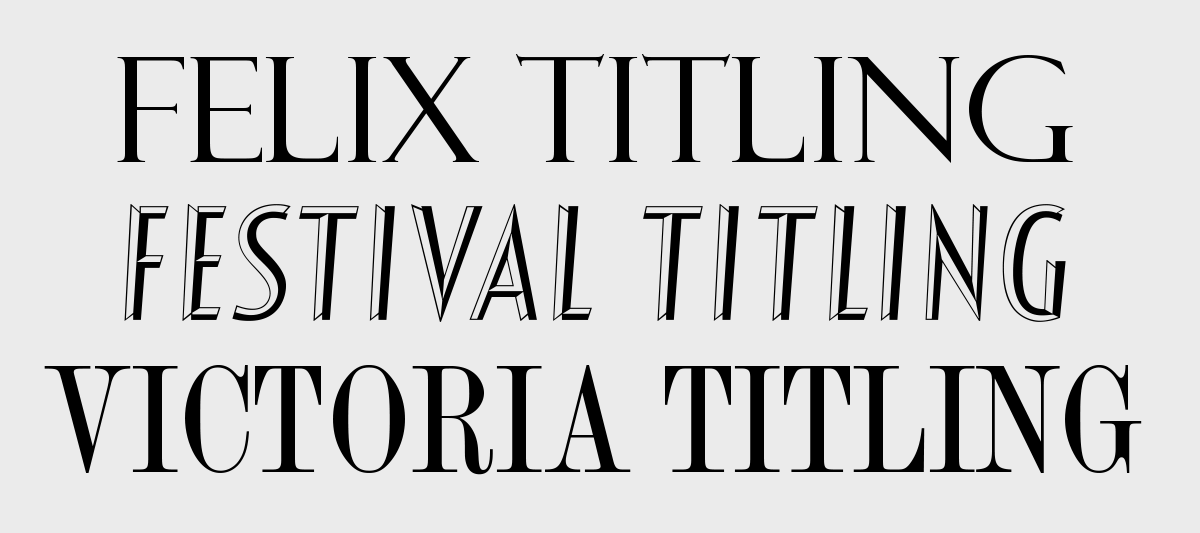
All About Titling Fonts
When looking for just the right display typeface, have you considered a titling font? If not, you are missing out on an entire category of possibilities. Titling fonts are typefaces designed specifically for headline or display usage. They are usually all caps, but some can contain lowercase, and even small caps! Titling fonts differ from their text counterparts in that their scale, proportion, and design details have been tweaked to look best at larger sizes. They often have an increased weight contrast between the thick and thin parts of the characters, and can sometimes have more condensed proportions than their text-sized cousins if part of a family.
This sub-category of display typefaces tend to have a refined, even dramatic look – qualities that make them an excellent choice for books, magazines, movie titles and sequences, logos, signage, or any usage that calls for large-sized type benefiting from finessed design details as well as a touch of elegance.
Titling fonts can be part of an existing typeface or a stand-alone design. They are most often – but not always – serif designs with pronounced weight contrast, as it is the thin strokes that vary the most in typestyles intended for text and those meant for display.
Font Families with Titling Fonts
Titling fonts, as mentioned above, are frequently single-weight variants that are part of a type family, such as those available with Adobe Garamond Pro, ITC Golden Cockerel, Dante, Plantin, and Bembo, They are designed to expand the range of usage of designs that are primarily intended for text. In some cases, titling fonts are made to be used with a font family of a different name, such as Forum Titling, which was designed by Frederick Goudy to be used with his Kennerley type family, a book face.
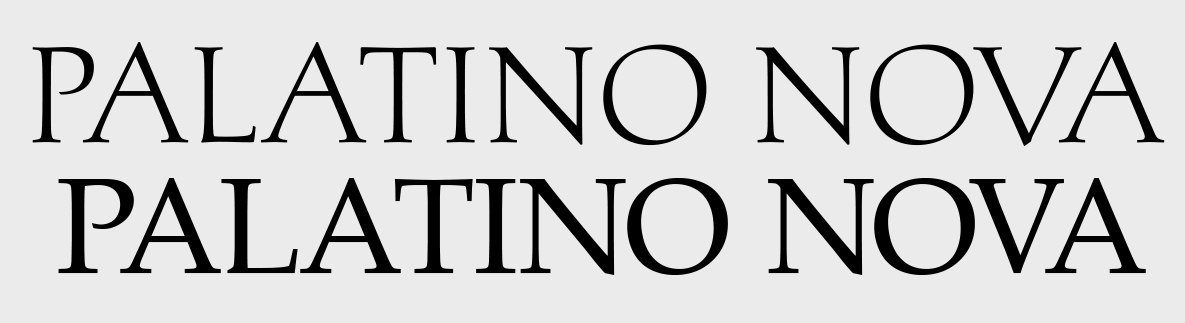
Palatino Nova Titling is lighter, narrower, with some different design details than the regular version below it, such as a raised crossbar on the A.
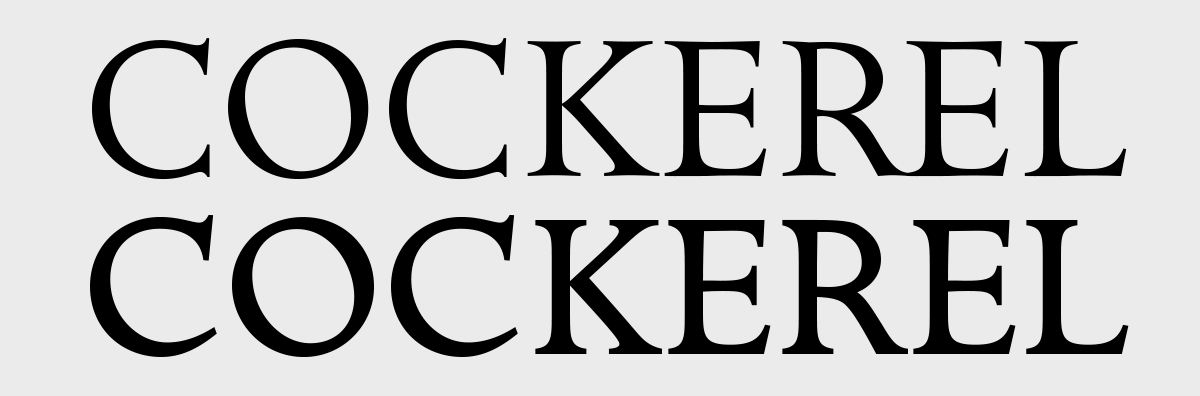
Golden Cockerel Titling (upper) has thinner serifs than the regular version, including a lower serif added to the lower extension of the C.
While most titling fonts are designed as part of the original family, some come later, both in concept and execution. One such example is Hoefler Titling. Hoefler Titling is unique amongst titling fonts in that it is a robust family of twelve fonts for display sizes. It is basically three weights (Light, Semibold, and Bold) that each includes romans (upright designs), italics, small caps, and swashes. This classic design in the baroque style was designed to be a display-sized companion to Hoefler Text typeface family. Some titling fonts deviate a bit from the typical model. One such example is Neutraface Display Titling, which is a heavyweight, all-cap version of this sans serif typestyle.
The Hoefler Titling family has a whopping 12 versions and is a companion to the Hoefler Text family.
Stand-alone Titling Fonts
Titling fonts can also be standalone designs, such as Felix Titling, Festival Titling, and Victoria Titling Condensed. Some are even more decorative than the typical titling font, such as Rococo Titling and Erler Titling. While titling fonts are most often all caps, there are some exceptions, such as Village Bold Titling, which has a lowercase.
How to Find Titling Fonts
If you are using or considering a font that contains titling alternates within it, such as Adobe Garamond Pro, these characters can be accessed via the Character panel’s drop-down menu found in many design apps, such as Adobe InDesign and Illustrator. Note that only OpenType fonts have the expanded character capacity that can accommodate these extra glyphs.
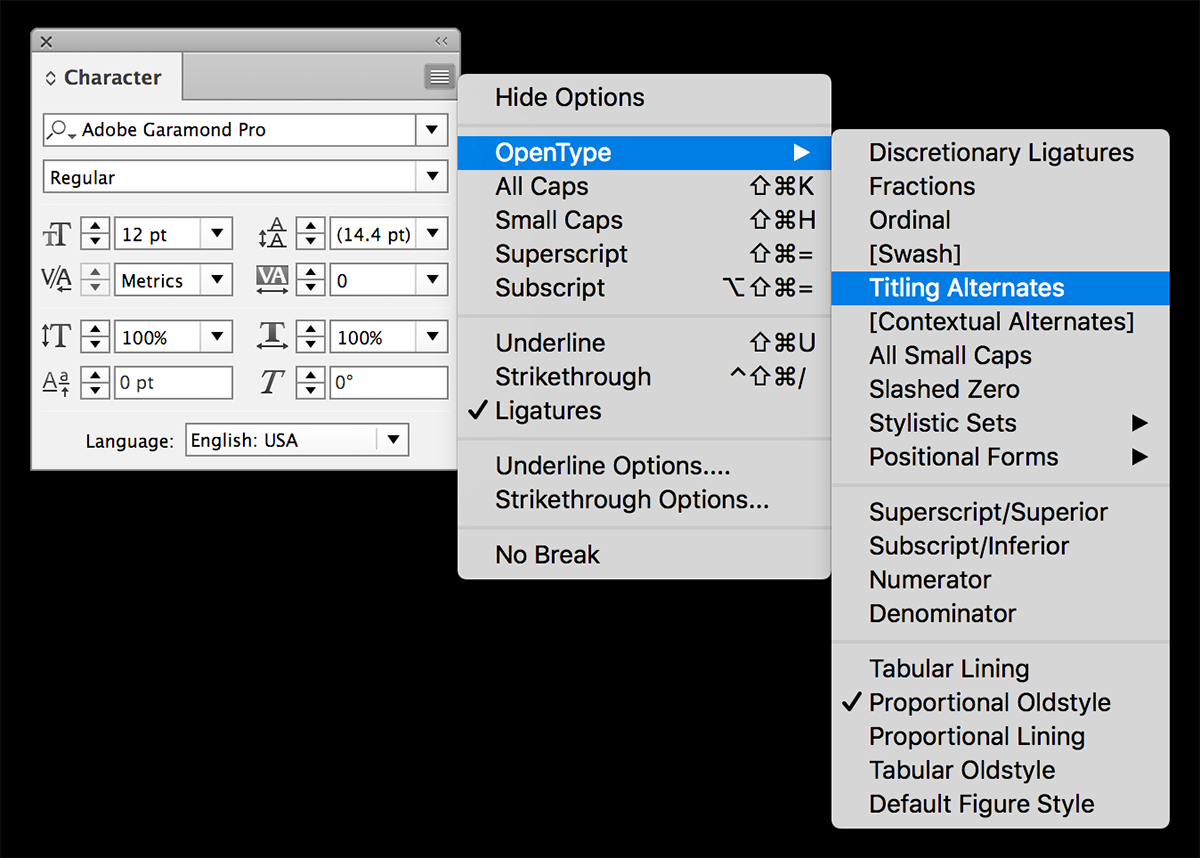
Adobe Garamond titling caps are accessed from within the regular Garamond font via the Titling Alternates option located in the Character panel.
If you are starting an exploration for a titling font via a font foundry or reseller, the easiest way to locate them is to do a search for “titling.” Don’t forget to check out Google Fonts, which also has titling fonts, such as those shown below.
You might even have titling fonts in your own library that you are not aware of, so don’t forget to search for “titling” in your existing library. If you are using a font management utility (FontAgent Pro, Extensis Suitcase Fusion, Linotype Explorer, or even Apple’s Font Book), you can drag the results of this search into a folder entitled “Titling Fonts” for easy identification in the future.
Another method for location individual titling fonts is to search from within the software you are using, such as Adobe InDesign, Illustrator, or Photoshop.
This includes searching via Typekit, which can be accessed from some of the Adobe Cloud apps. If you don’t find what you are looking for, and you or a client are in dire need of a titling font for a specific typeface for extra large usage, try contacting the designer or foundry, and they might be willing to make you a custom font for your needs.